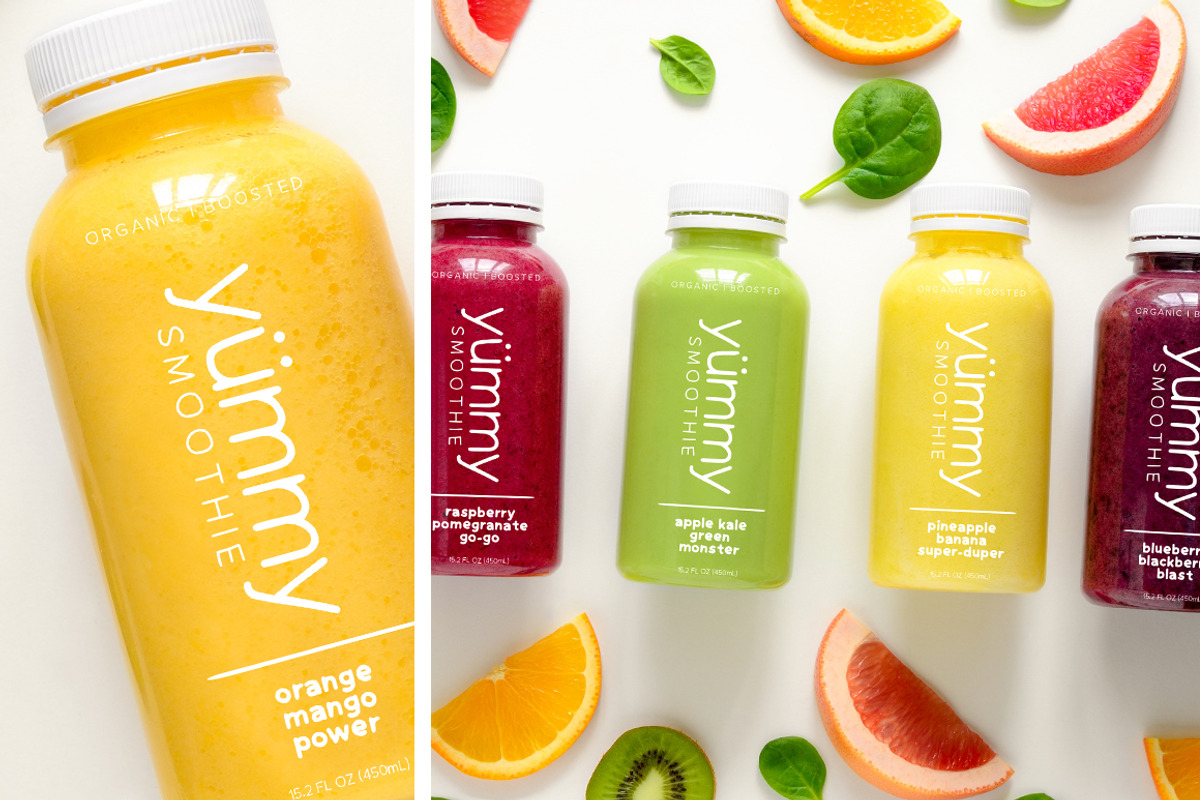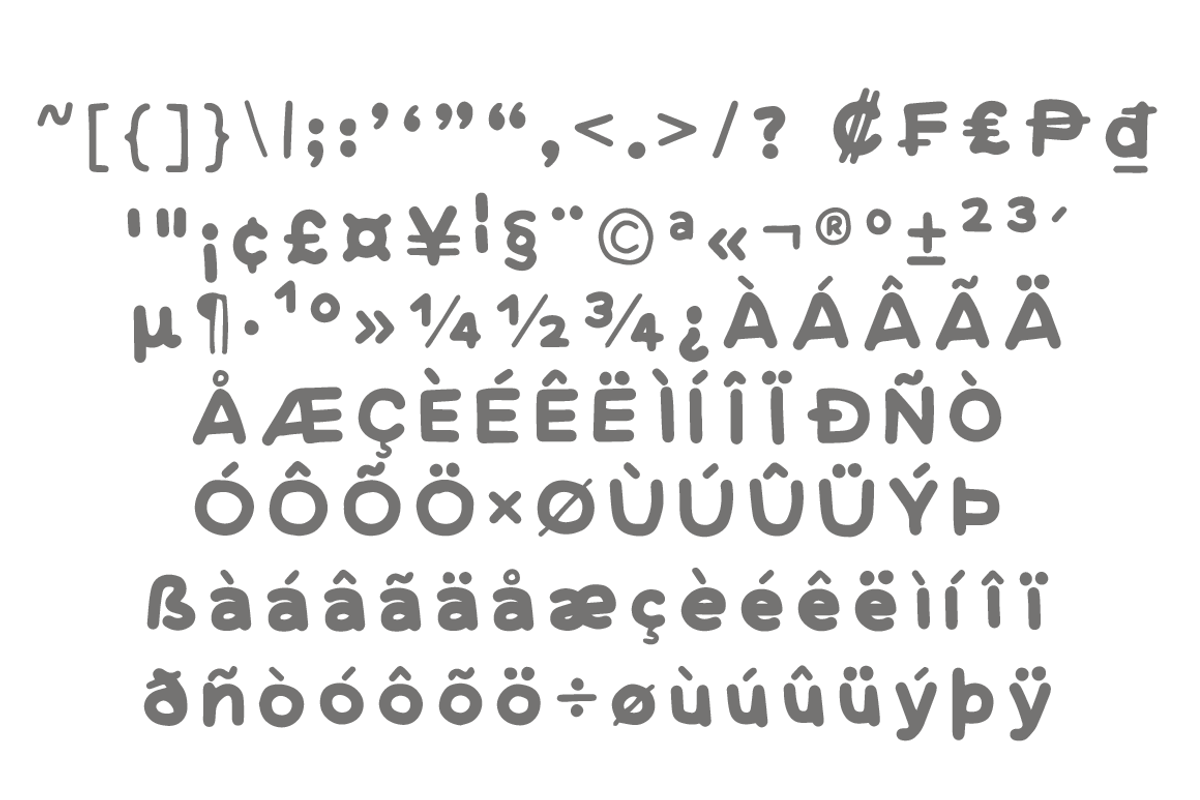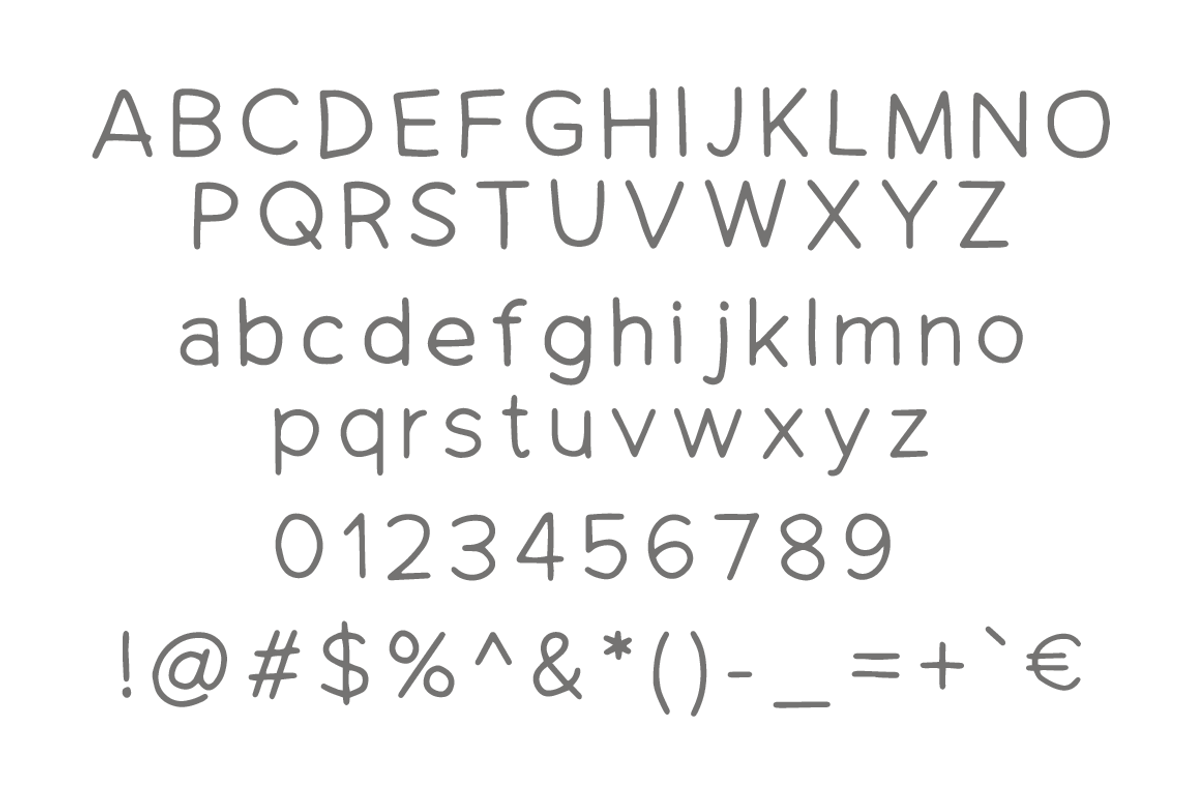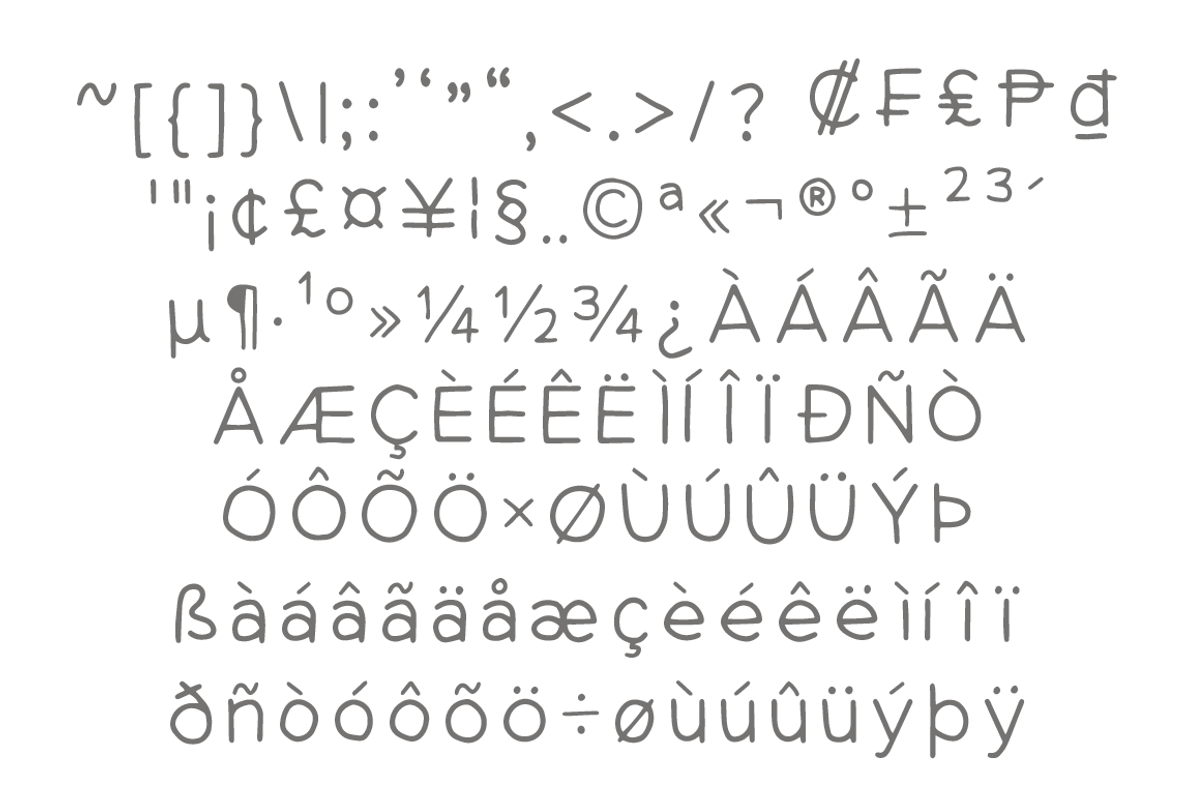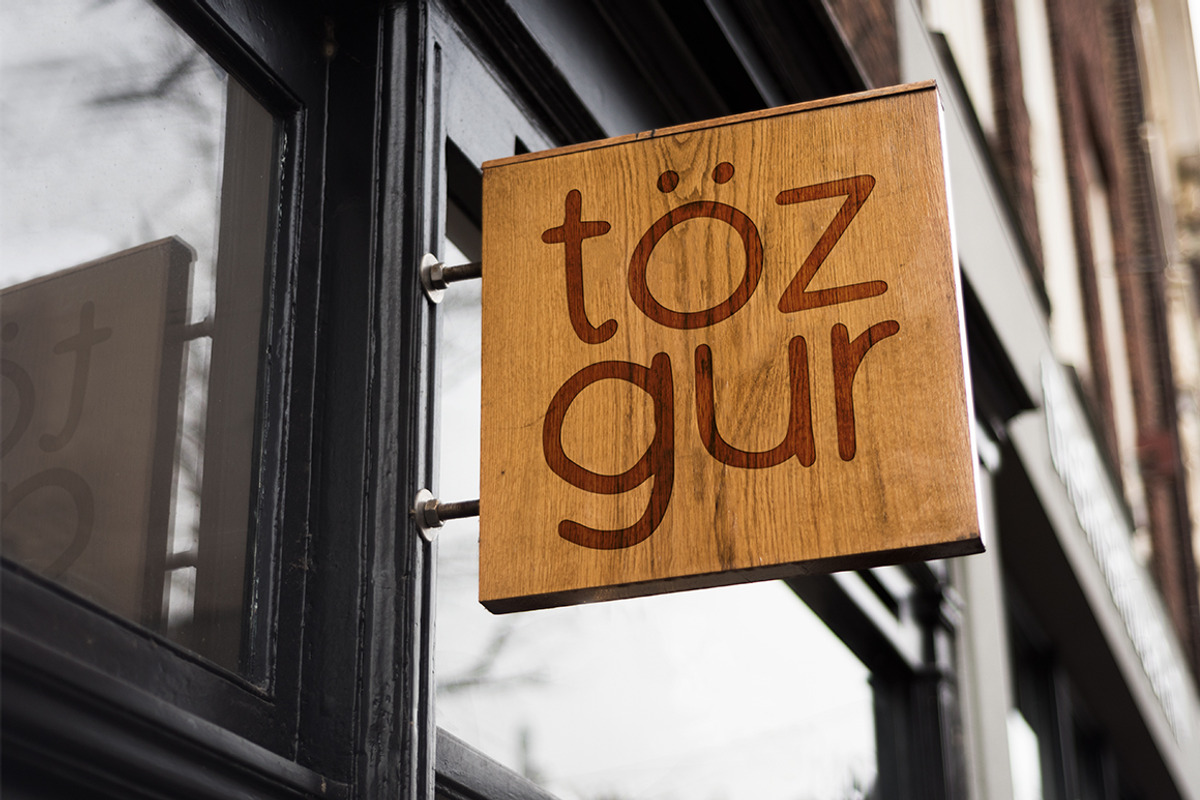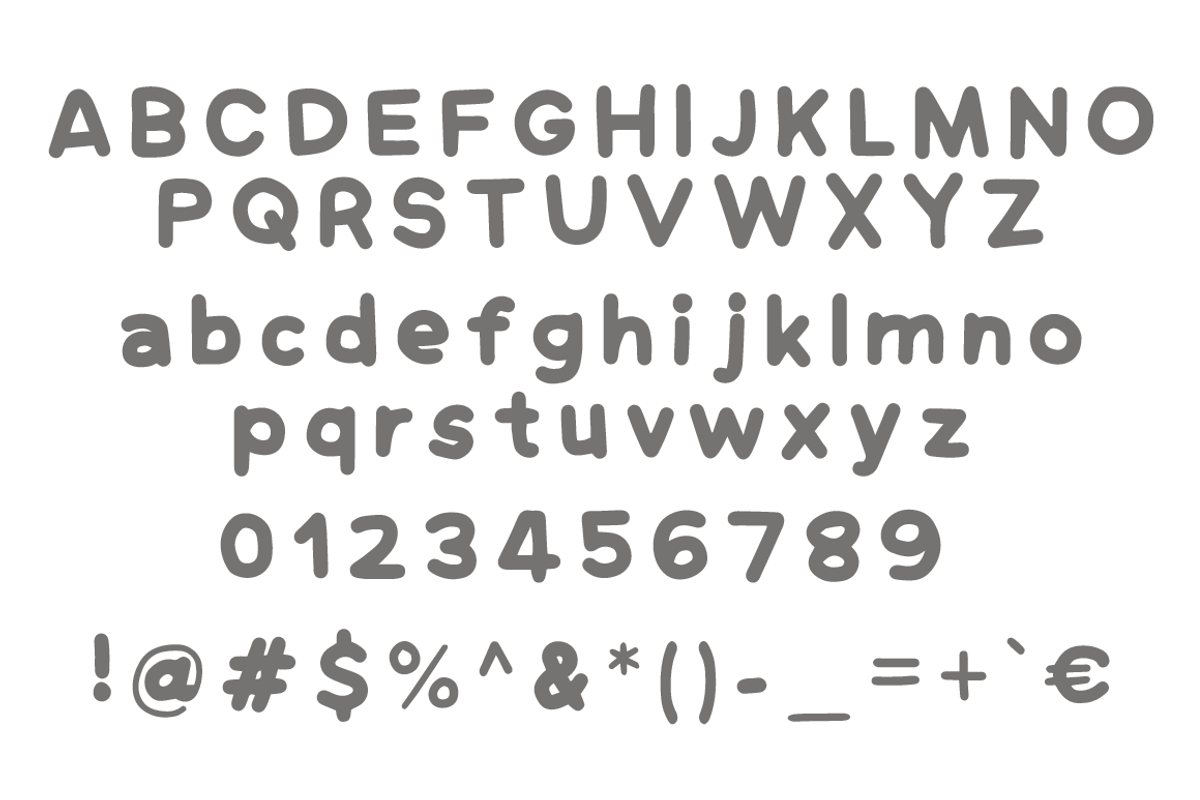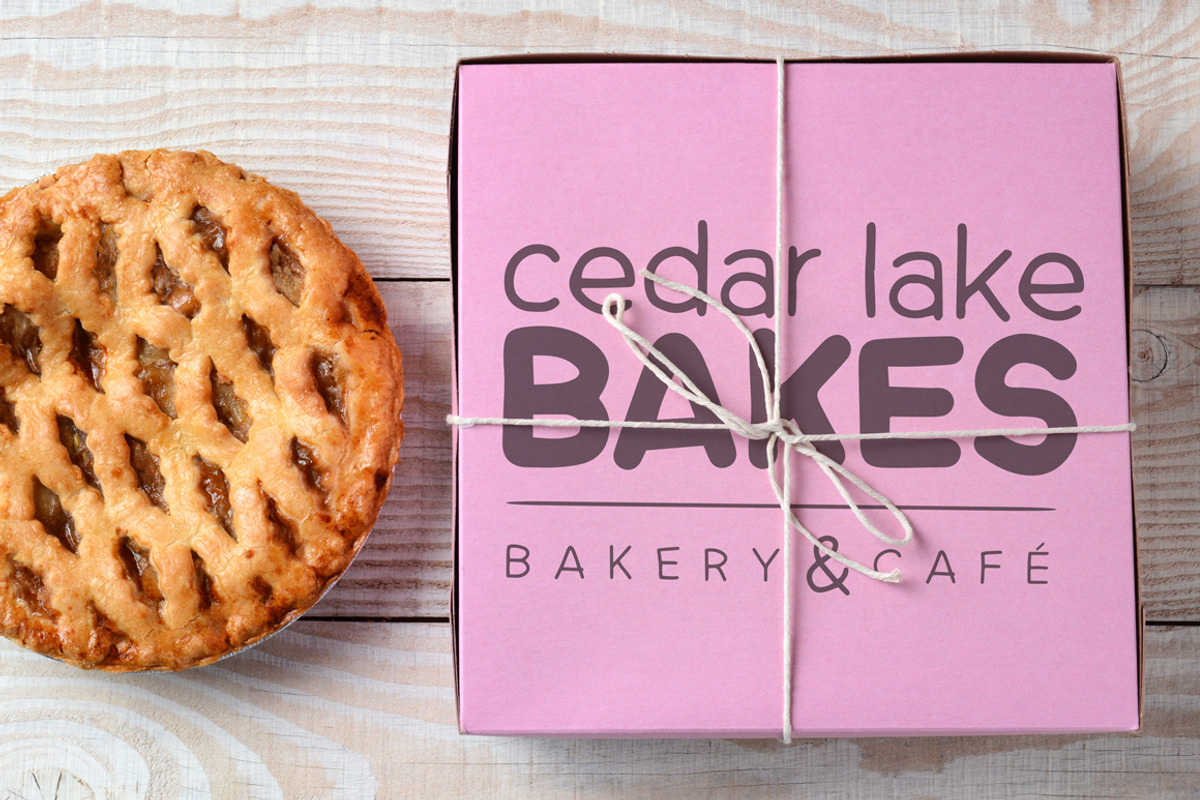
Hand Grotesk: hand drawn font
Hand Grotesk is a hand drawn font in a neo-grotesk style. It’s fun, with structure. Its look and function work well for branding, packaging & editorial design.
- Hand Grotesk Regular
- Hand Grotesk Bold